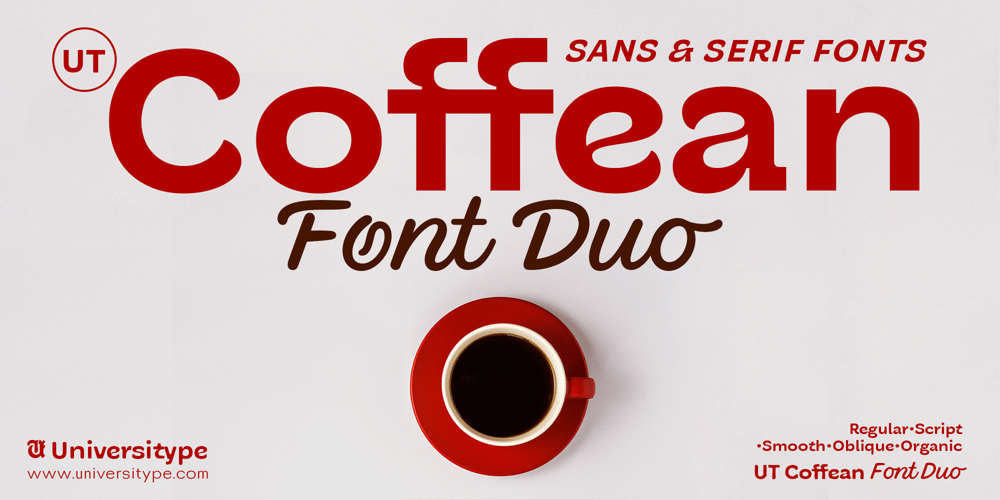
UT Coffean Font Duo Font Family was designed by Muh. Aswar, Novan Arisandi and published by Universitype. UT Coffean Font Duo contains 5 styles and family package options. Immerse your designs in the cozy world of coffee with the UT Coffean Font Duo. Drawing inspiration from the organic beauty of a coffee bean, each character in this duo – UT Coffean Sans and UT Coffean Script – brings a handcrafted warmth that perfectly complements artisan coffee shops and brands. Use UT Coffean to channel the alluring aroma of Kenyan coffee into a versatile and elegant typographical experience.Each curve, indentation and flow of UT Coffean is grounded in the delicacy of the coffee bean’s anatomy. With a blend of style options like Regular, Smooth, Oblique, and Organic, UT Coffean Sans strikes the perfect balance between style and structure, making it a must-have font for your design toolkit. UT Coffean Script, on the other hand, allures with its fluid and handwritten aesthetic, reminiscent of steam wafting from a freshly brewed cup.From boutique coffee brands and trendy cafés to lifestyle businesses seeking the warmth of a coffee-inspired font, UT Coffean Font Duo is a versatile and inclusive choice. Whether you’re dreaming up a new look for branding, packaging, social media content or print materials, UT Coffean brings the heartwarming charm of your morning coffee ritual to the world of typography.With the inclusion of two sets of alternates, ligatures, and swashes, UT Coffean provides limitless opportunities for customization. Dive into the heart of a coffee bean and let your creative ideas percolate with UT Coffean – where everyday typography meets warm, engaging designs.